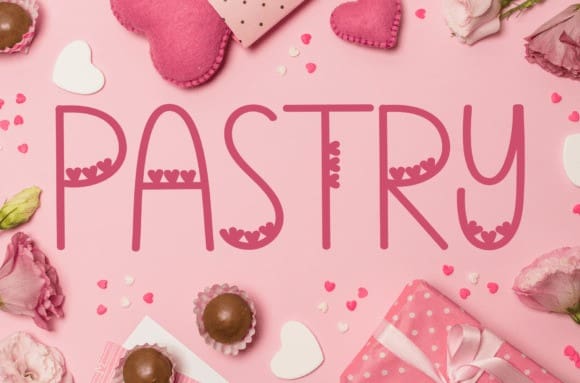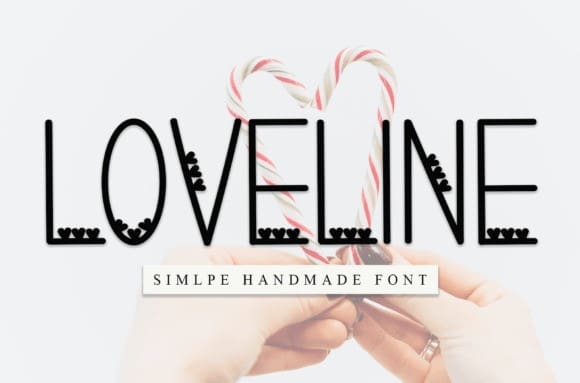
Loveline Display Font
Loveline Display Font is a sweet and friendly handwritten font. Creative and fresh, this font is ideal for writing wedding invitations, cards, or any other design that might need a fun touch!